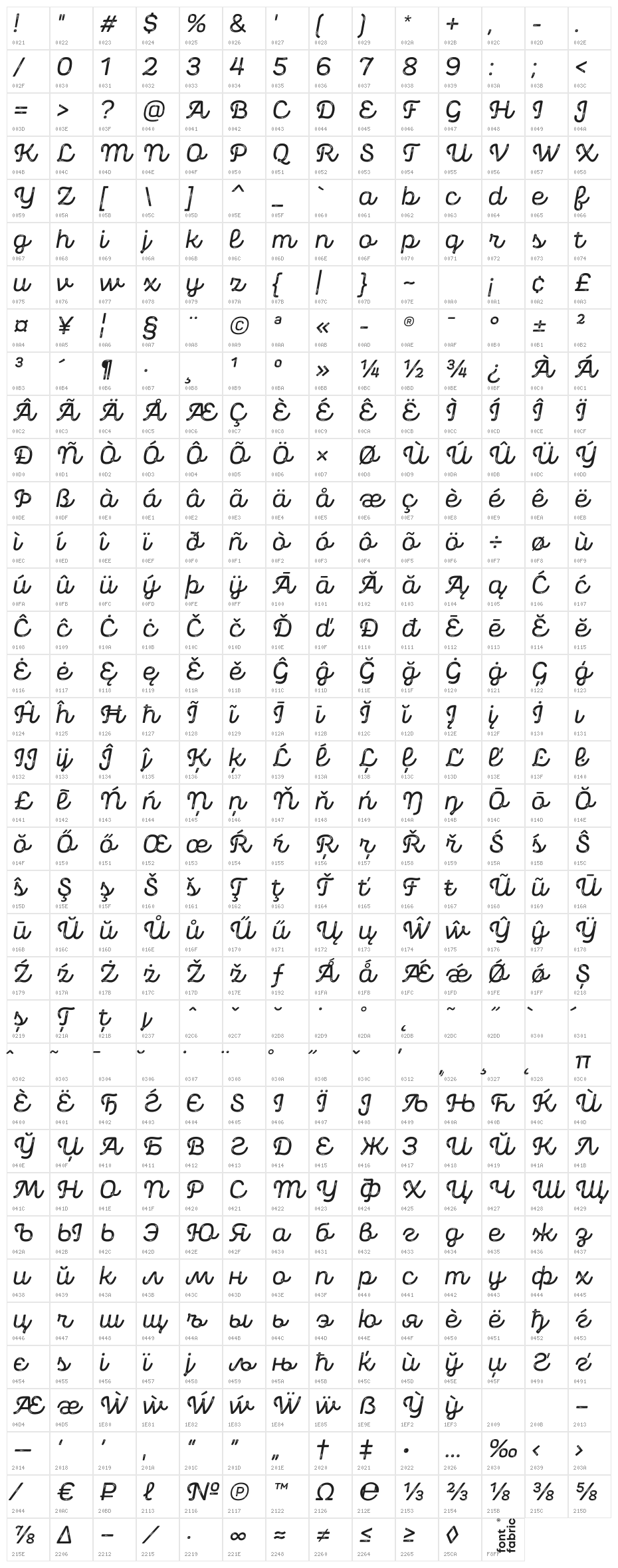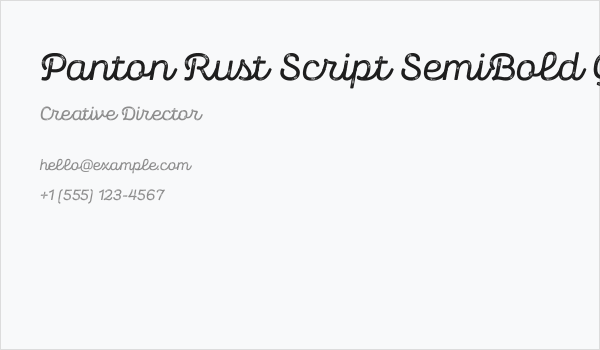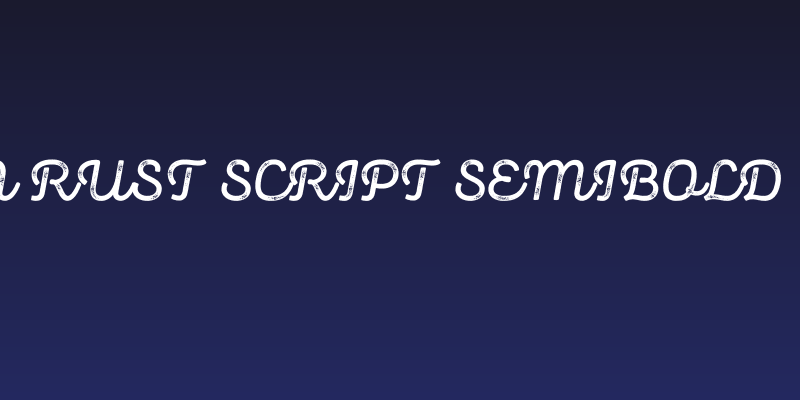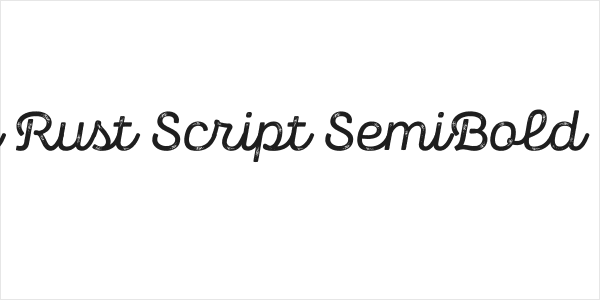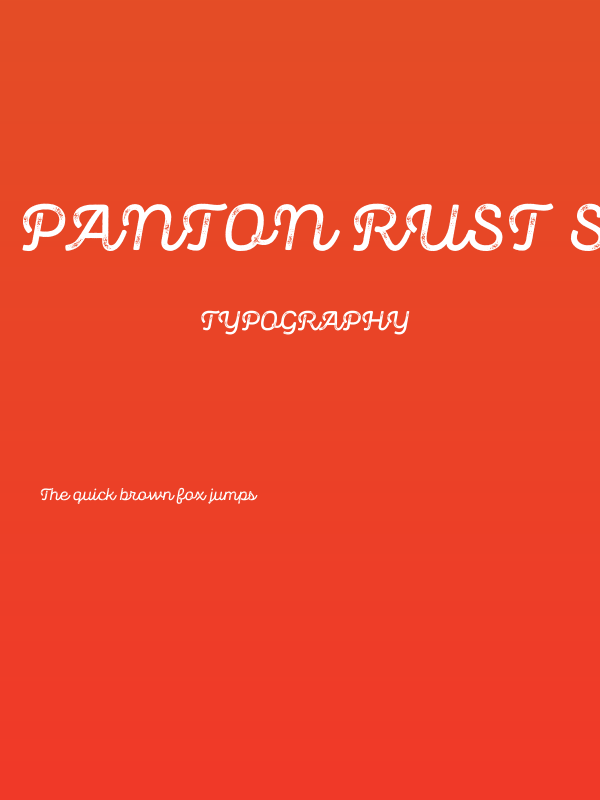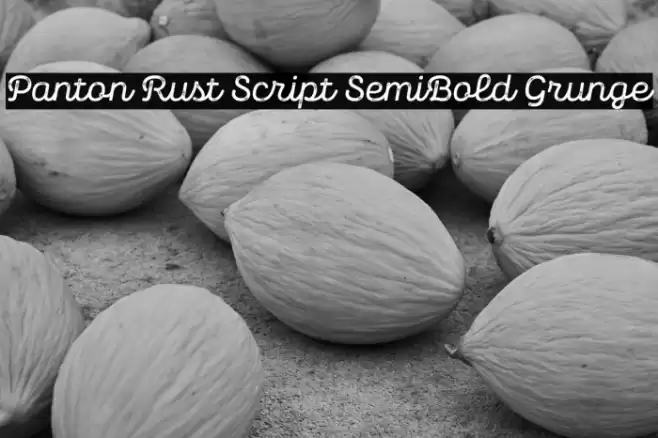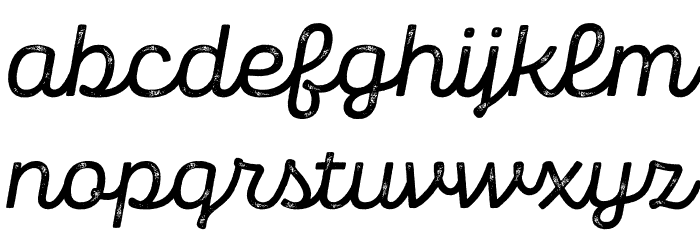
Panton Rust Script SemiBold Grunge Font
Panton Rust Script SemiBold Grunge Description
This font exhibits a bold, script style with a distinctive grunge texture that adds a rustic and vintage feel. The letters are connected in a cursive manner, providing a fluid and dynamic appearance. The uppercase and lowercase characters maintain a consistent style, with rounded edges and a slight slant, enhancing the script's elegance. The numbers and special characters follow the same design principles, ensuring uniformity across all glyphs. The grunge effect gives the font a worn, distressed look, making it ideal for projects that require a touch of nostalgia or a handcrafted aesthetic.
| Overall Style | Vintage |
| Use Case | Logos, Headlines, Posters |
| Proposed Projects | Ideal for branding, packaging, posters, and any design that seeks a vintage or handcrafted look. |